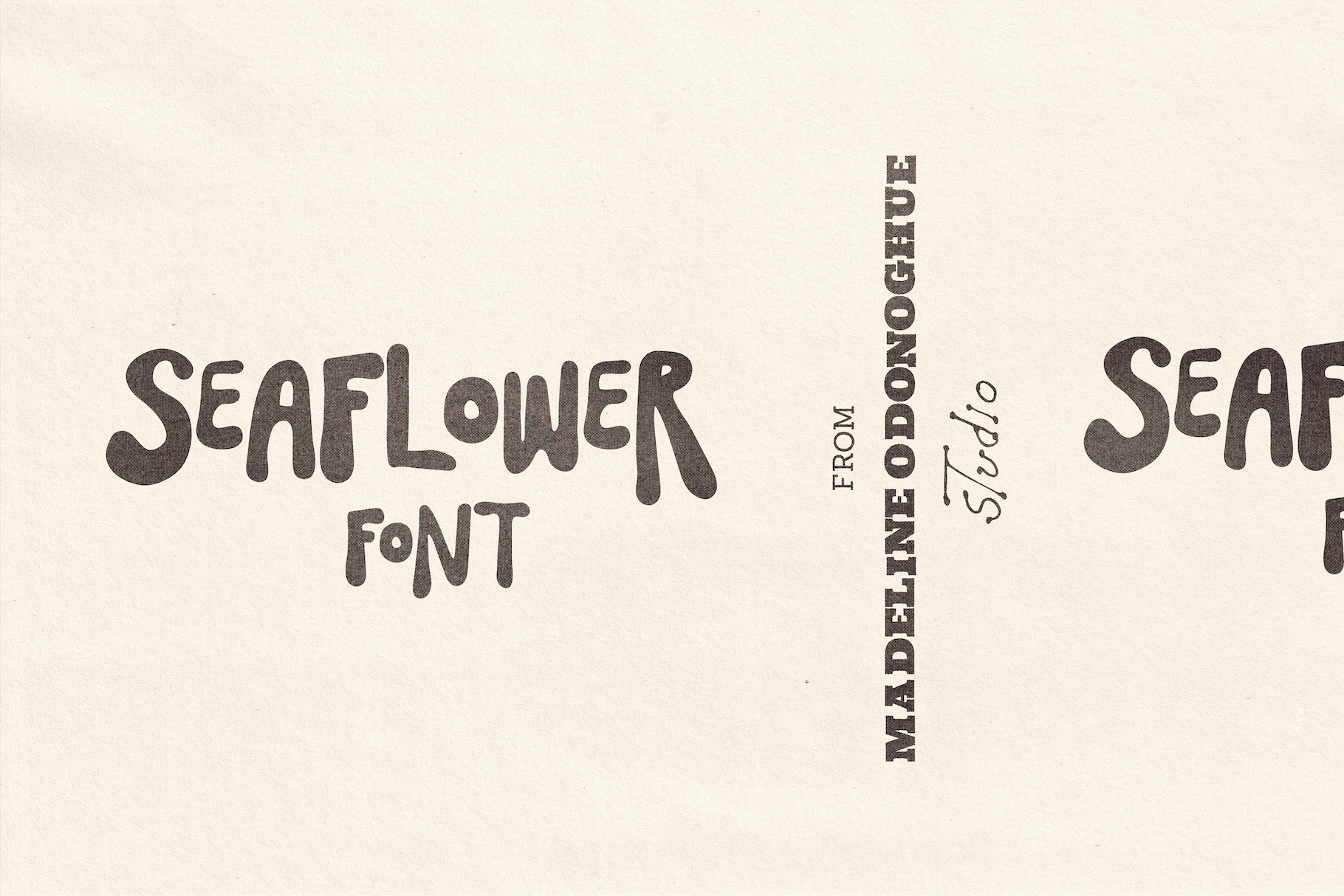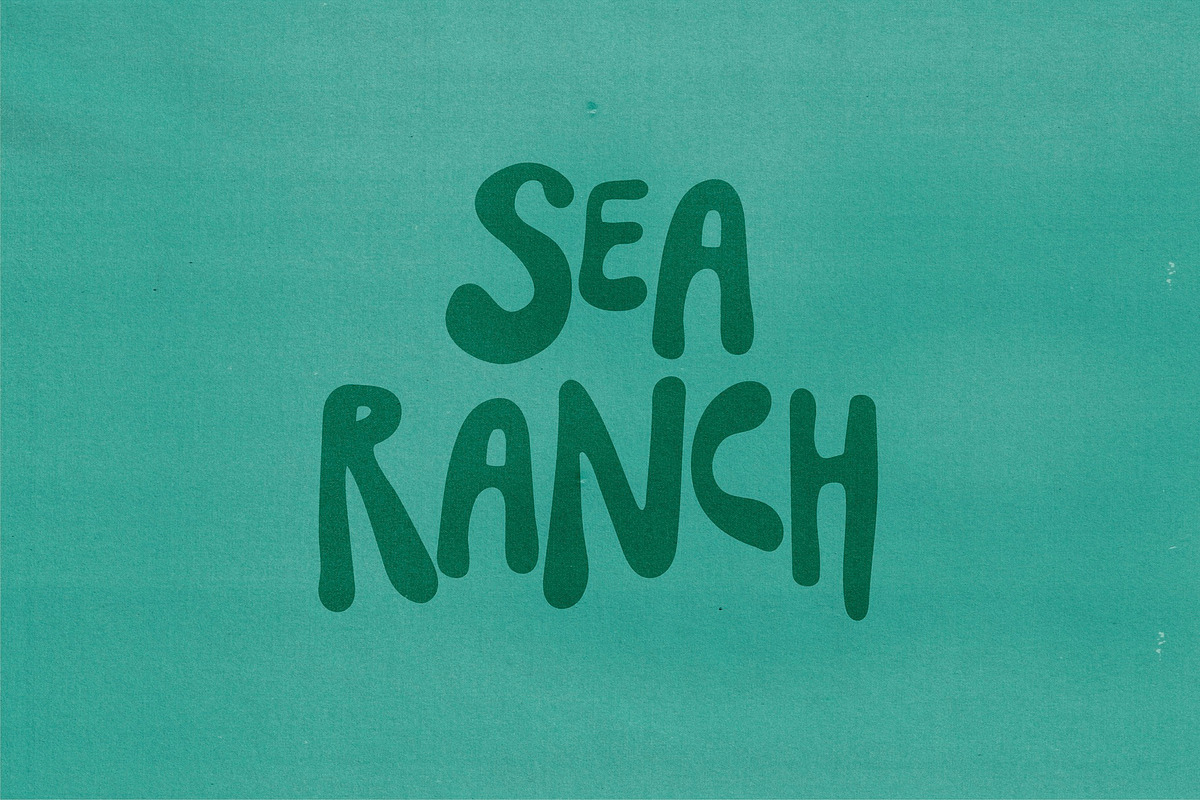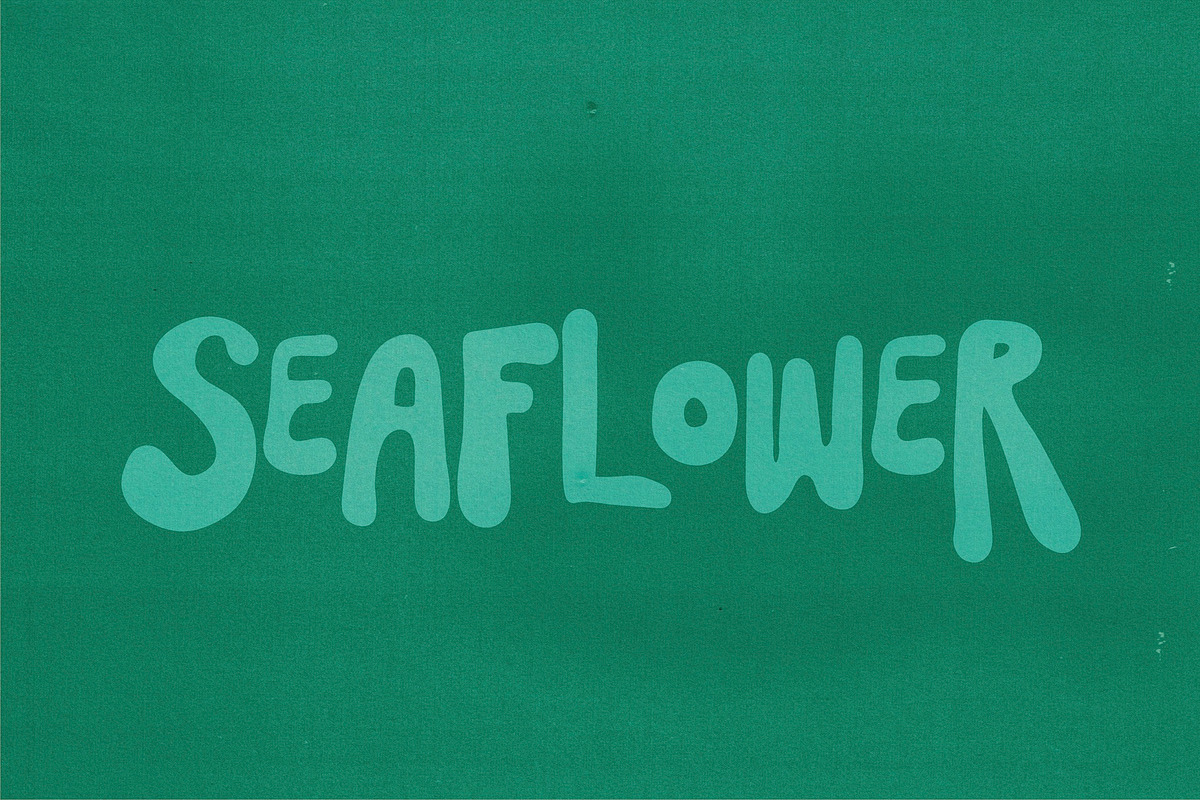
SeaFlower | Hand Drawn Surf Font
A little beneath the surface, where the sea flowers grow.
Meet SEA FLOWER, an organic hand-drawn display font inspired by vintage marine illustration, coastal print ephemera, underwater gardens and the beautifully irregular shapes of the natural world.
With soft, rounded letterforms and gently flowing curves, SEA FLOWER brings a playful, handmade quality to typography. Originally developed for a craft beer label, the font draws on the movement of seaweed, ocean flora and the quiet character of old seaside lettering.
Perfect for coastal branding, independent breweries, natural history-inspired graphics, book covers, packaging, posters, T-shirt designs and creative projects looking for something a little unusual.
There's something nostalgic and slightly psychedelic about SeaFlower. A little 1970s California, a little underwater garden, vintage surf shops, beachside breweries, old record sleeves and sun-faded packaging.
Rather than recreating a conventional retro font, SeaFlower has its own loose, flowing rhythm. Its rounded forms and handmade character bring warmth and personality to contemporary design.
Made for bold headlines, expressive wordmarks and playful graphic compositions, SeaFlower is particularly suited to projects that want a relaxed, nostalgic feeling without losing their individuality.
1970s-inspired surf and beachwear branding
Craft beer labels, beverage packaging and independent breweries
Vintage-style logos and expressive wordmarks
Music posters, record sleeves and festival graphics
Coastal cafés, surf shops and lifestyle brands
Retro merchandise, T-shirts and apparel
Playful editorial typography and graphic design
SeaFlower is a little piece of the ocean — flowing, imperfect, sun-soaked and made entirely by hand.